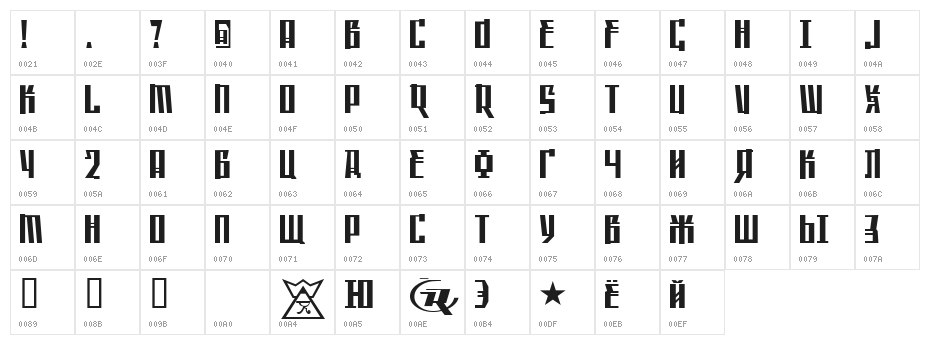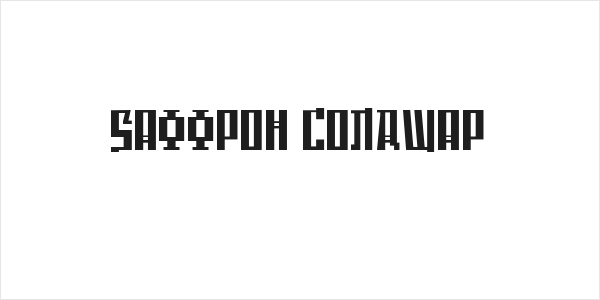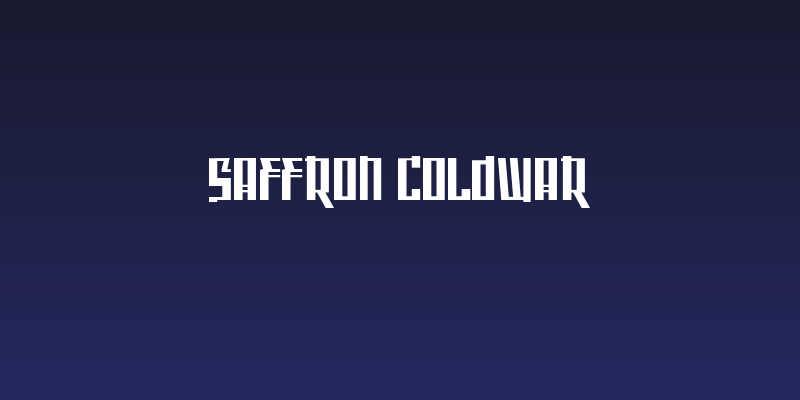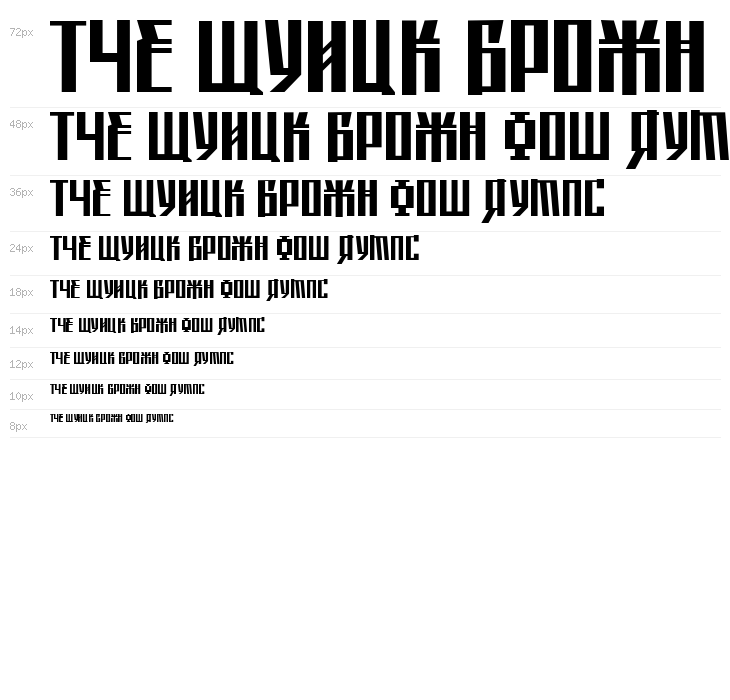
Saffron ColdWar Font
Saffron ColdWar Description
This font features a bold, geometric design with sharp angles and a blocky appearance. The uppercase letters are strikingly uniform, with consistent height and width, creating a cohesive and powerful visual impact. The lowercase letters maintain the same boldness, with a slightly condensed form that complements the uppercase. Numbers are equally bold, with a rectangular shape that mirrors the letterforms. Special characters are designed with the same angular style, ensuring consistency throughout. The font's overall aesthetic is reminiscent of industrial or military themes, making it suitable for projects that require a strong, assertive presence.
Overall StyleIndustrial, Military
Proposed ProjectsIdeal for posters, logos, branding, and any design requiring a strong, assertive look.